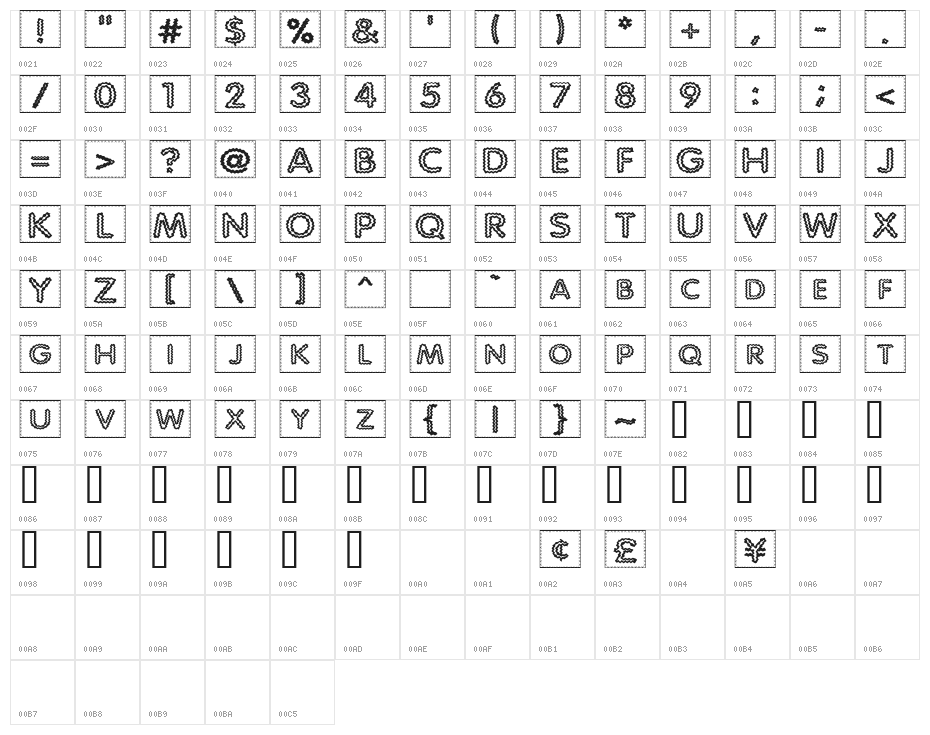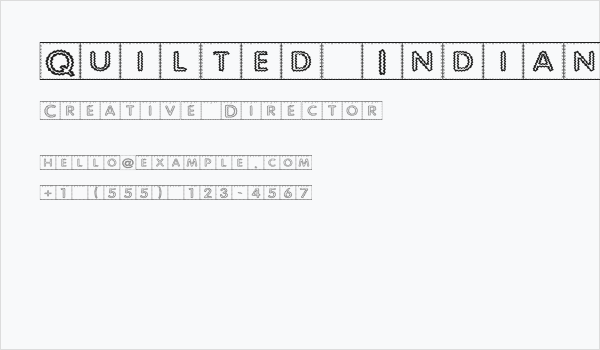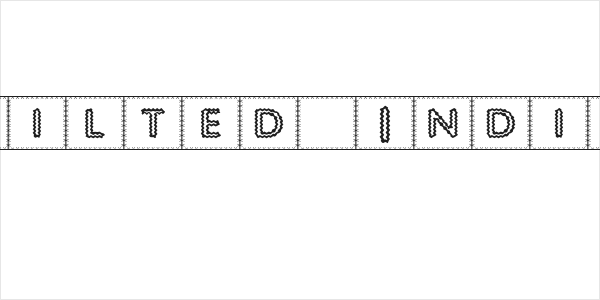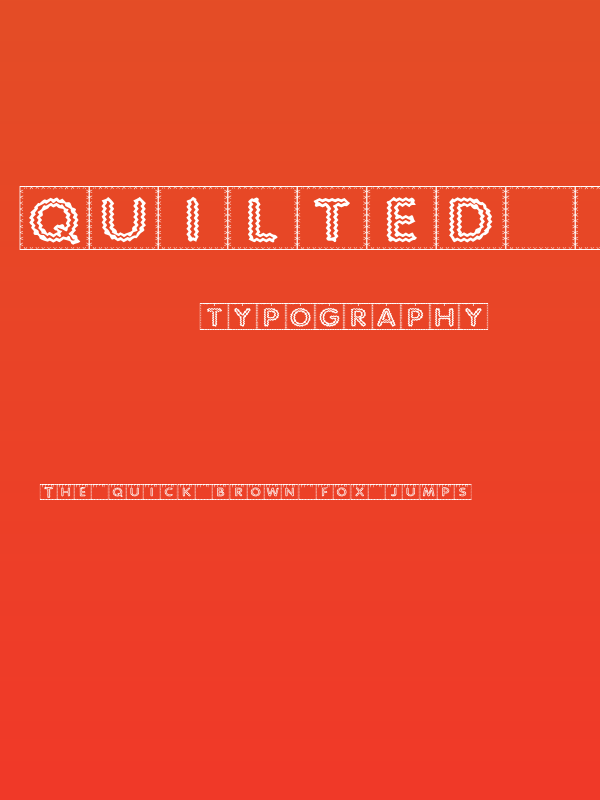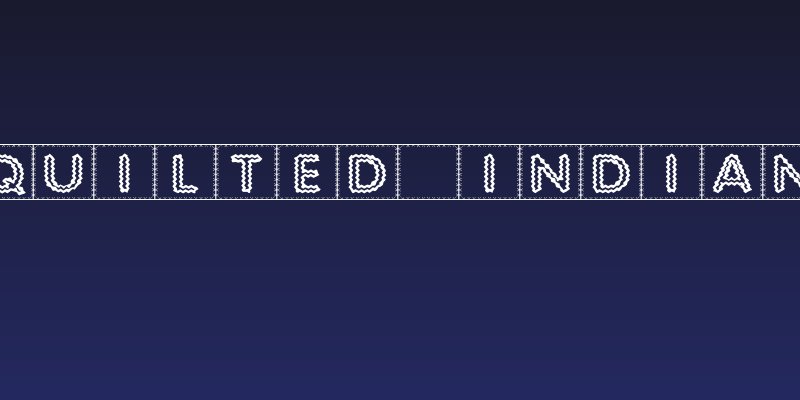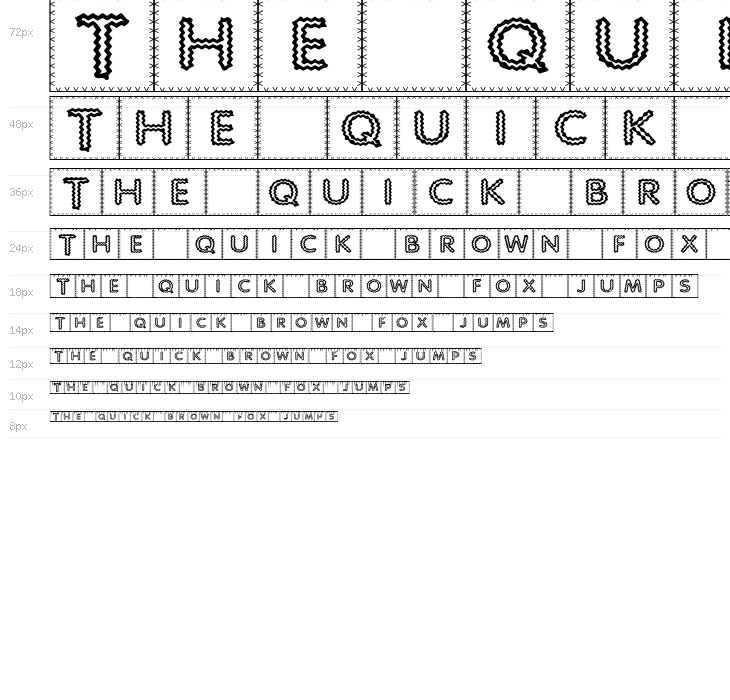
Quilted Indian Font
Quilted Indian Description
This font features a unique quilted pattern that adds a textured, handcrafted feel to each character. The letters are enclosed in individual boxes, giving a structured and organized appearance. The uppercase and lowercase letters maintain consistency in style, with a playful yet sophisticated look. The numbers and special characters follow the same quilted design, ensuring uniformity across all elements. This font's distinct style makes it stand out, perfect for projects that require a touch of creativity and elegance.
Use CaseLogos, Headlines, Creative projects
Proposed ProjectsIdeal for crafting projects, children's books, quilting patterns, and creative branding.